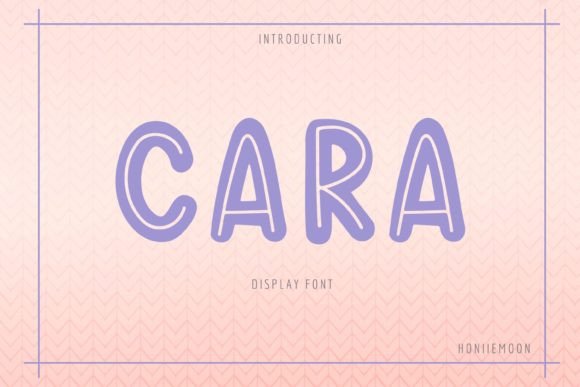
Unleash your creativity with Cara Font, a display font that's as charming as it is versatile. Inspired by love, Cara adds a touch of whimsy and cheer to your designs. Crafted by the talented Honiiemoon, this font exudes both cuteness and jolliness, making it the perfect choice for bringing your ideas to life.
Picture this: a poster for a children's play, adorned with Cara's playful letters that dance across the page, inviting kids and adults alike into a world of imagination. Or perhaps a greeting card, its message of love and friendship expressed with a unique charm that only Cara can provide.
With Cara Font, your designs will come alive with a vibrant personality that's sure to captivate your audience. Whether you're creating posters, logos, social media graphics, or website designs, Cara is the perfect font to add a touch of delightful charm.
Limited only by your imagination, Cara opens up a world of creative possibilities. Use it to design eye-catching flyers for events, add a personal touch to your blog posts, or create stunning invitations for special occasions.
Don't settle for ordinary fonts that blend into the background. Embrace the magic of Cara Font and watch as your designs transform into captivating works of art. Let Cara be your creative companion, guiding you on a journey of visual storytelling that leaves a lasting impression on your audience.